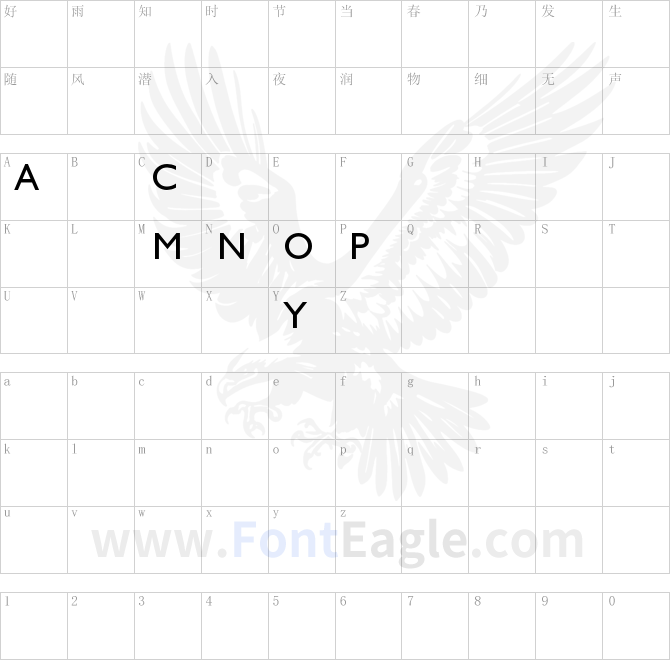
Humanst521-BT is a great font, widely used in graphic design, single-page menu design, poster design and other fields, and is deeply loved by designers.Humanst521-BT download.